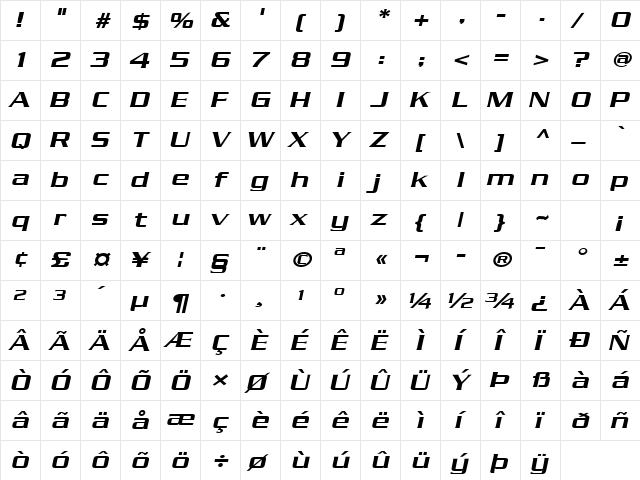
Chaney-Extended Bold Italic
Design Context for Chaney-Extended Typeface
Chaney-Extended offers clean, dependable letterforms without strong stylistic allegiance, making it a practical choice for designers who need flexibility. The dynamic lean of this cut emphasises speed and emphasis in any layout. The heavy weight commands attention and anchors typographic hierarchies.
Pro Tip: Use Chaney-Extended for emphasis, pull quotes, and subheadings where its slanted energy can add rhythm to the layout.